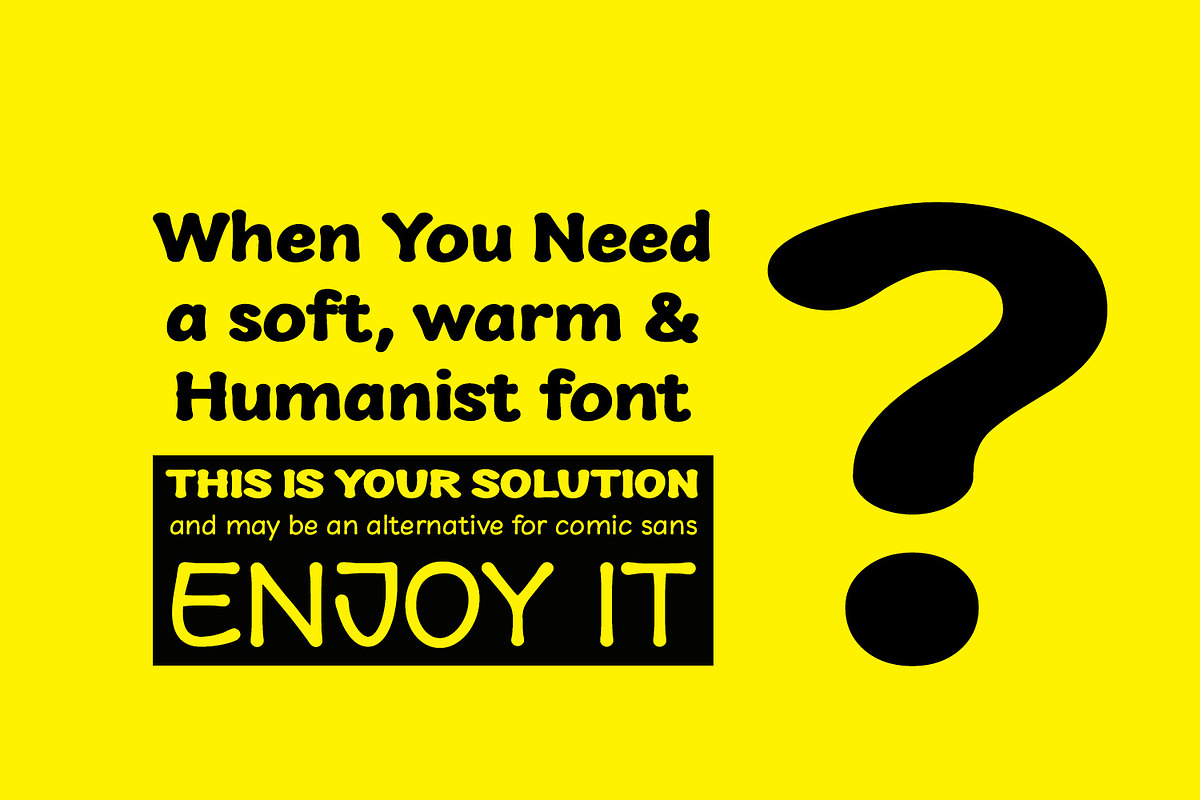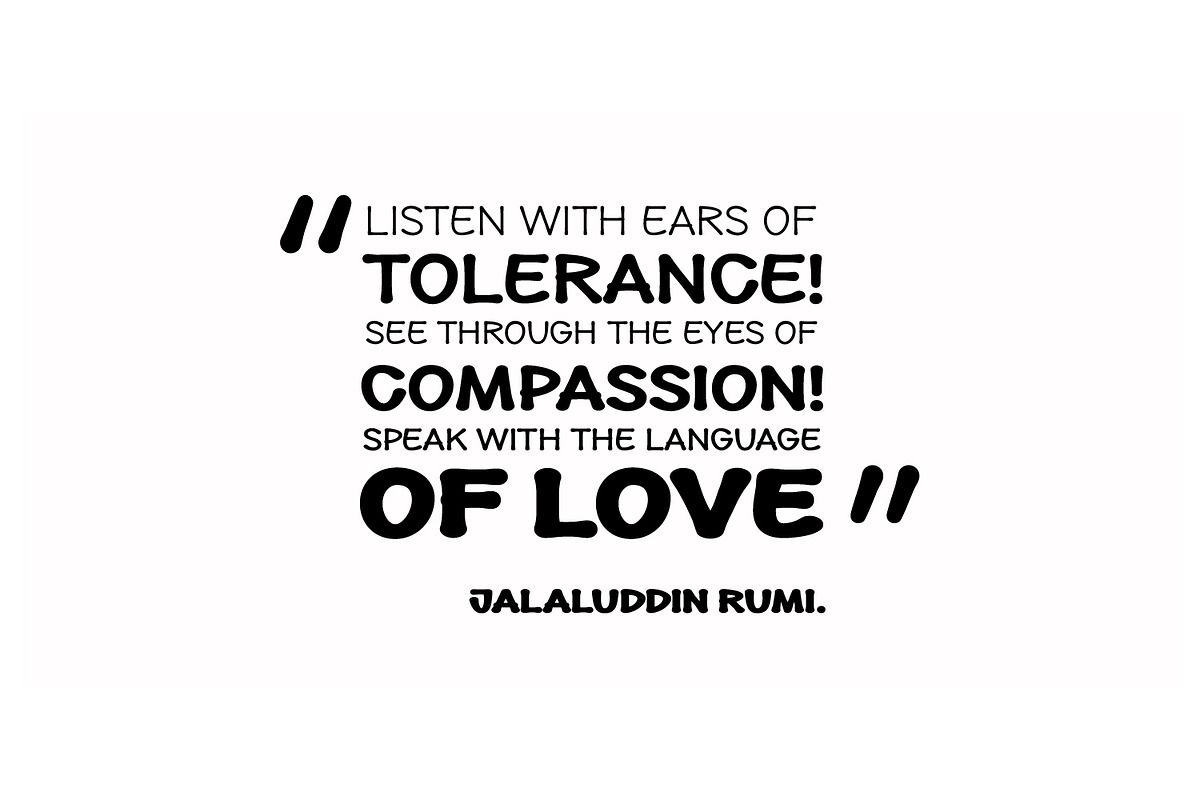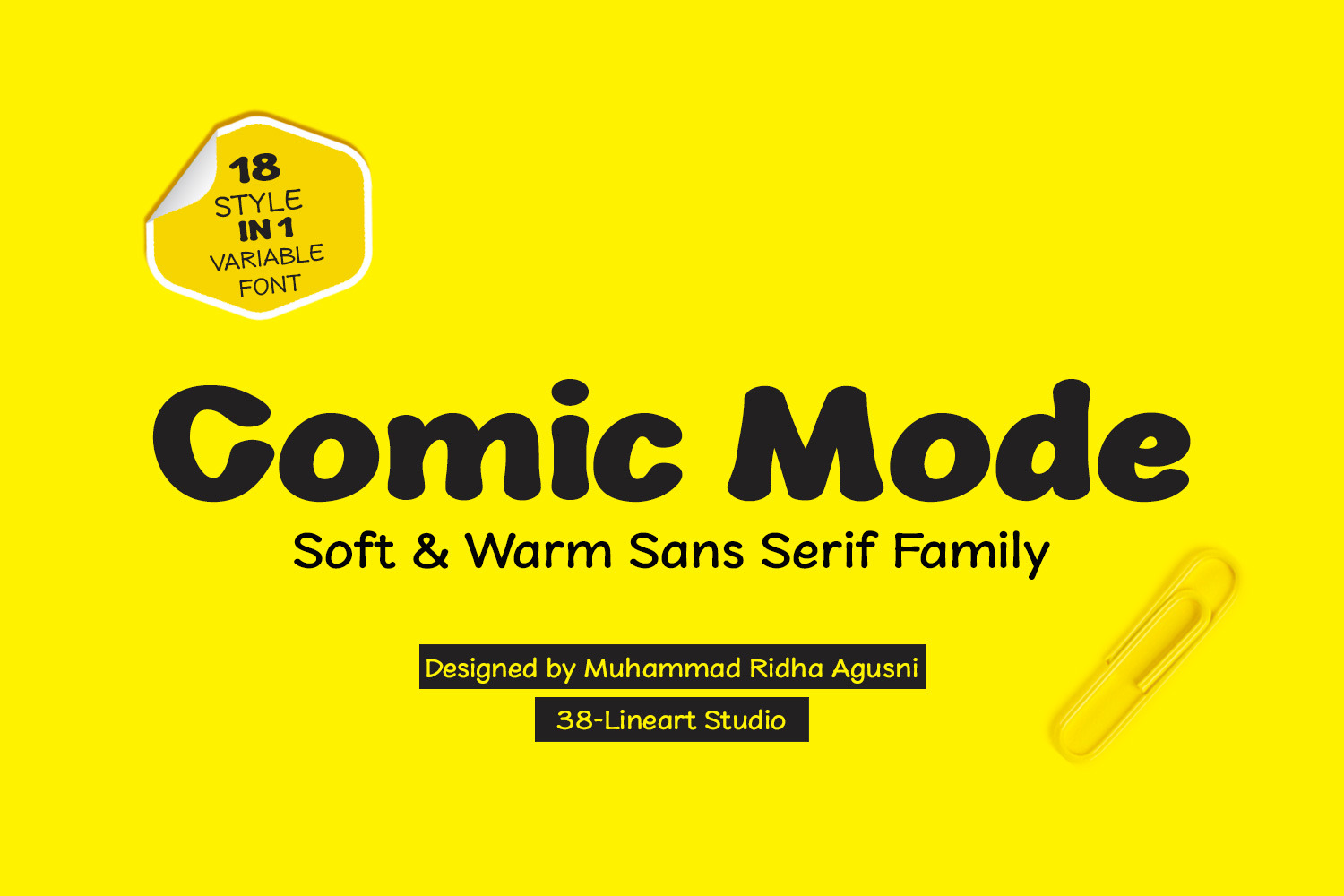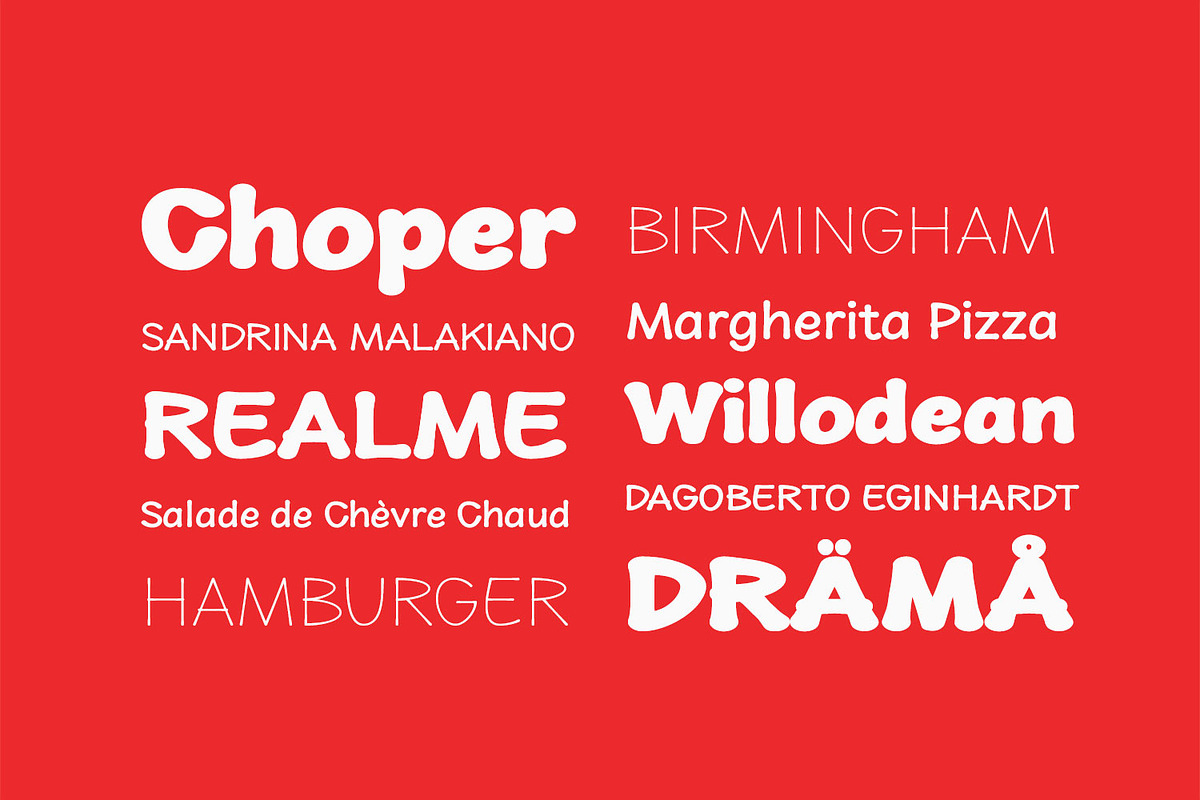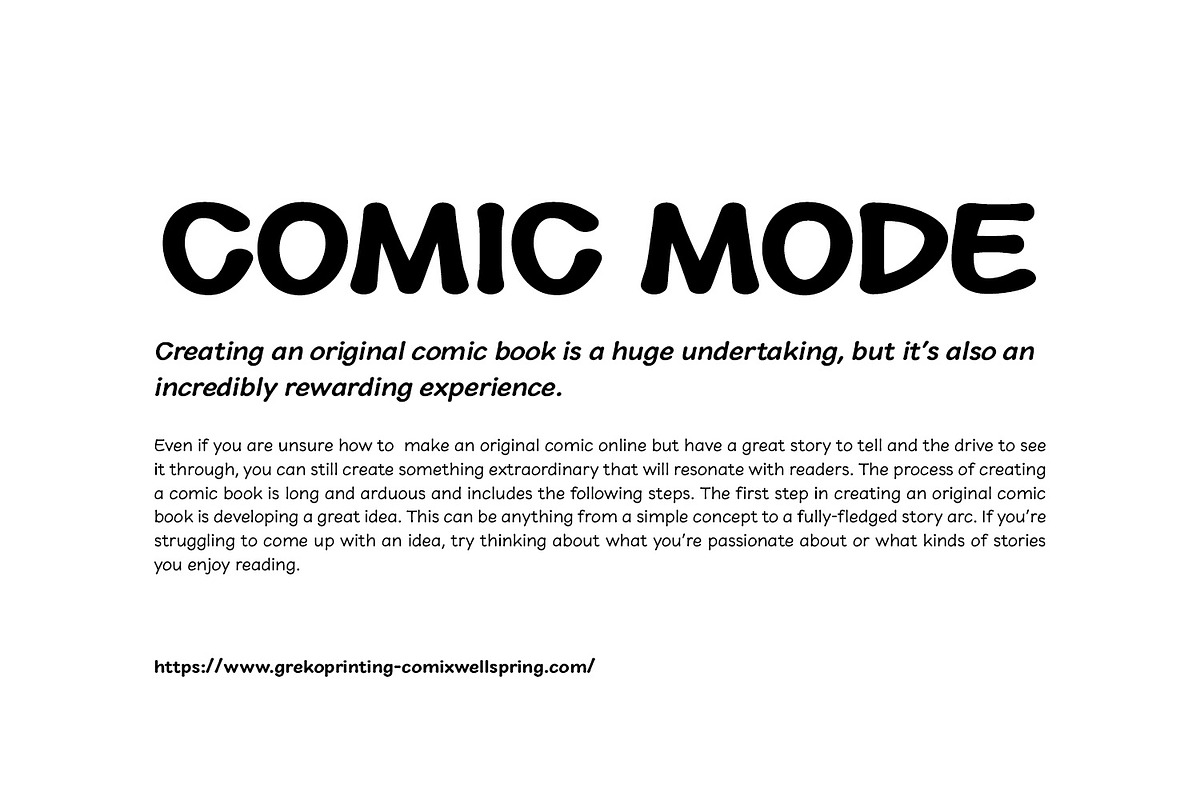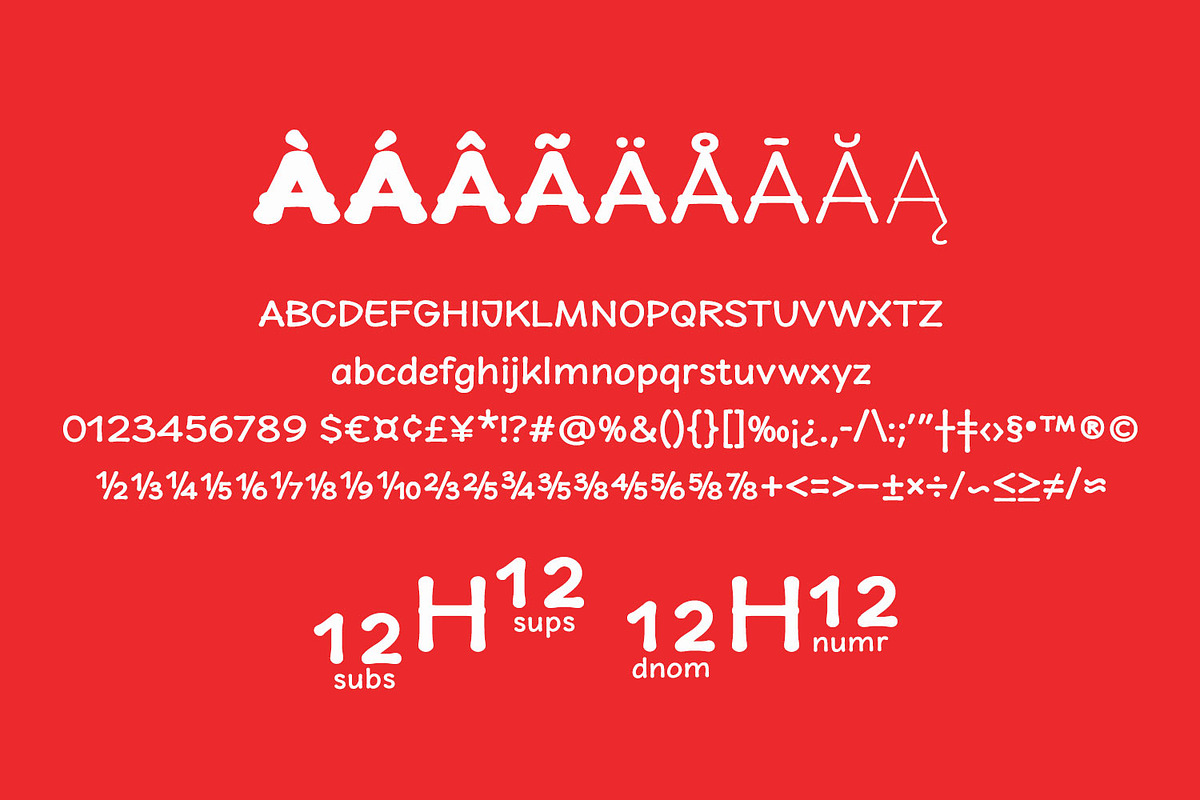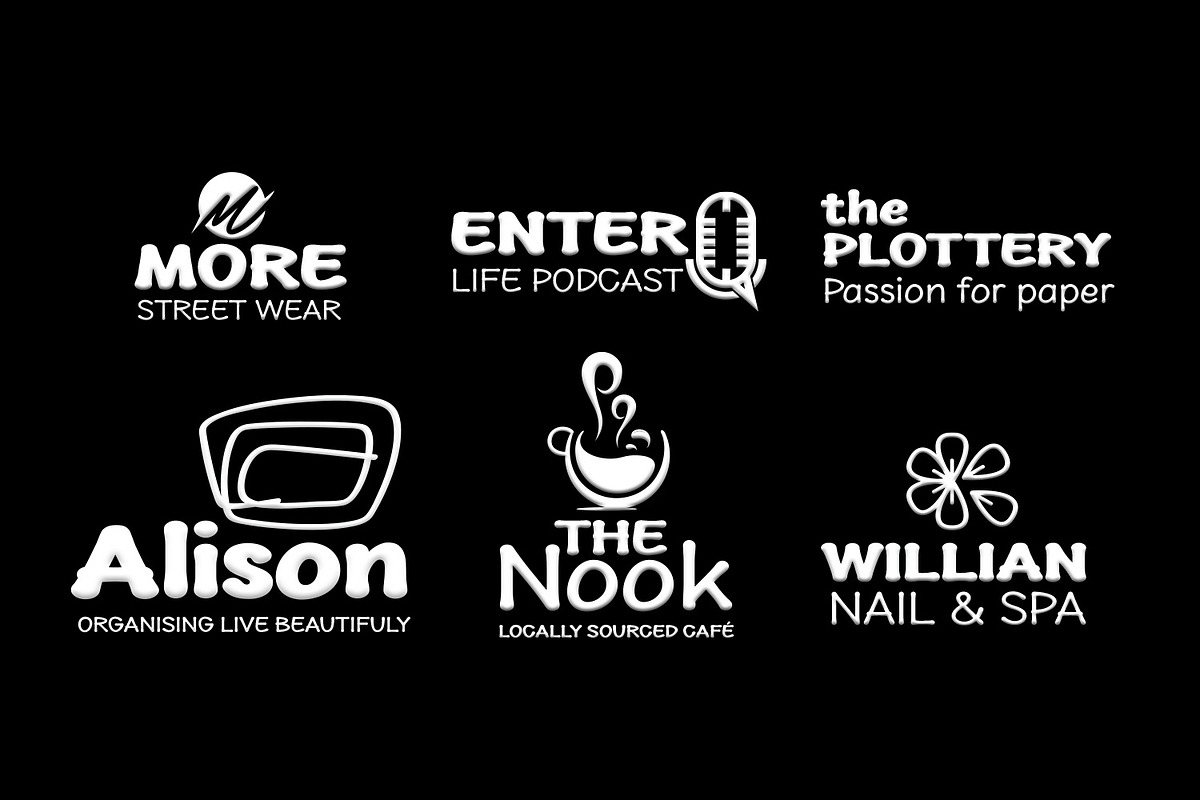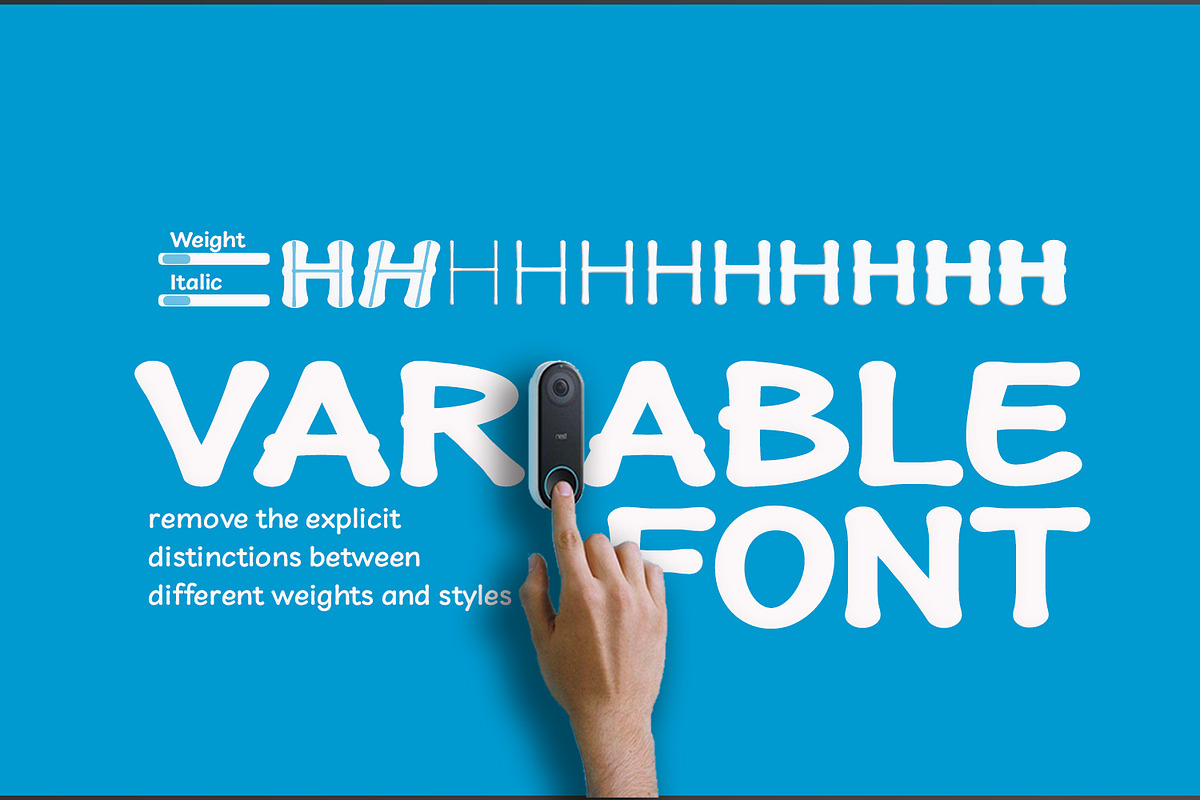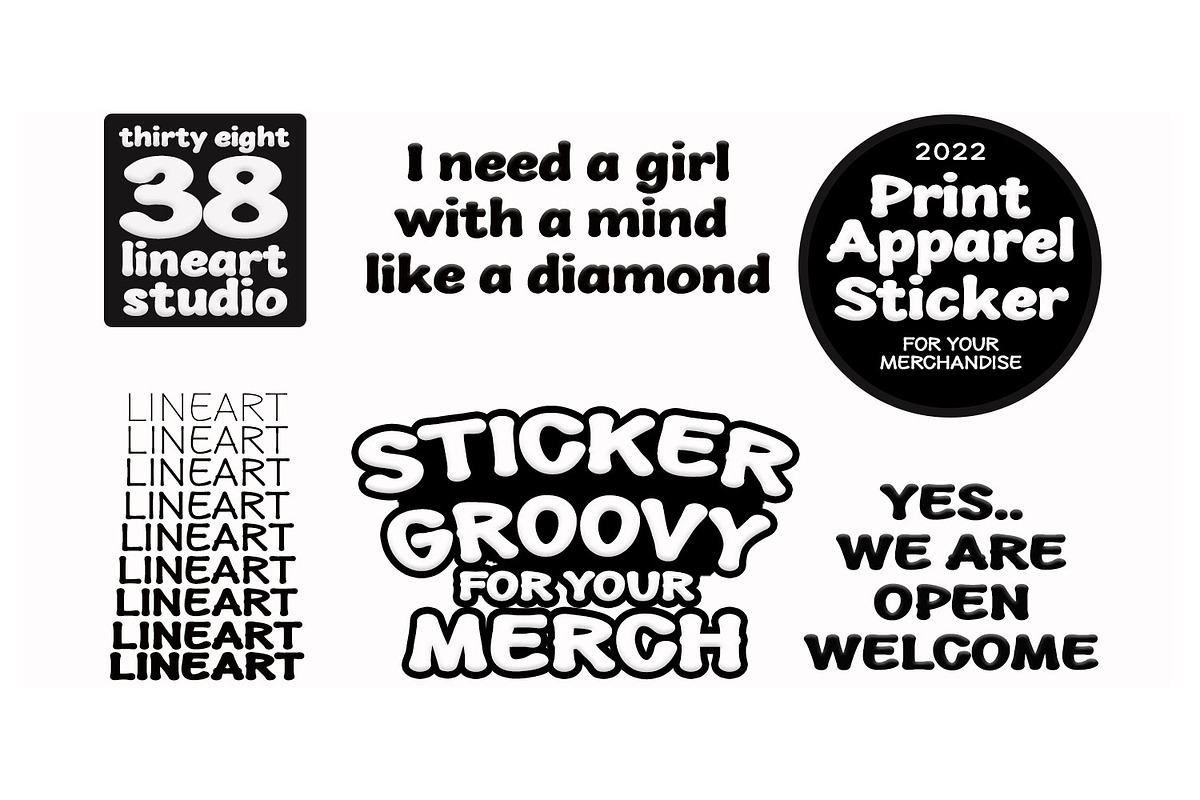
Comic Mode - Warm & Soft font family
Comic Mode is a warm, fun and comical sans serif family, "its an alternative for comic sans, with a more formal looks". Availavle of 9 weights from thin to black. with a curved character that is round on thin and increasingly elliptical on black.
The unique look of comic Mode is the combination of a technical sans serif and casual handwriting . These 9 diffrent weights also come with oblique style, so there are 18 styles in this family and 1 variable font that are a relatively new font format that allow one font file to contain multiple stylistic variations.
Fresh, unique and casual, make this font really worth having.